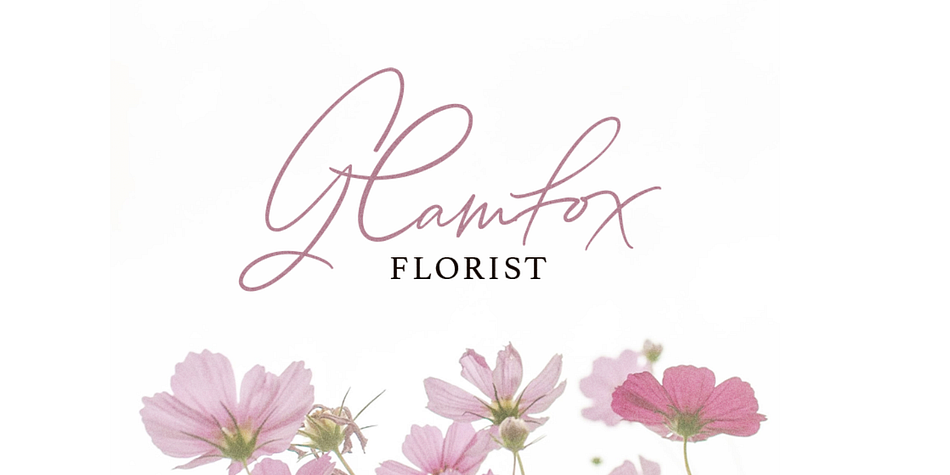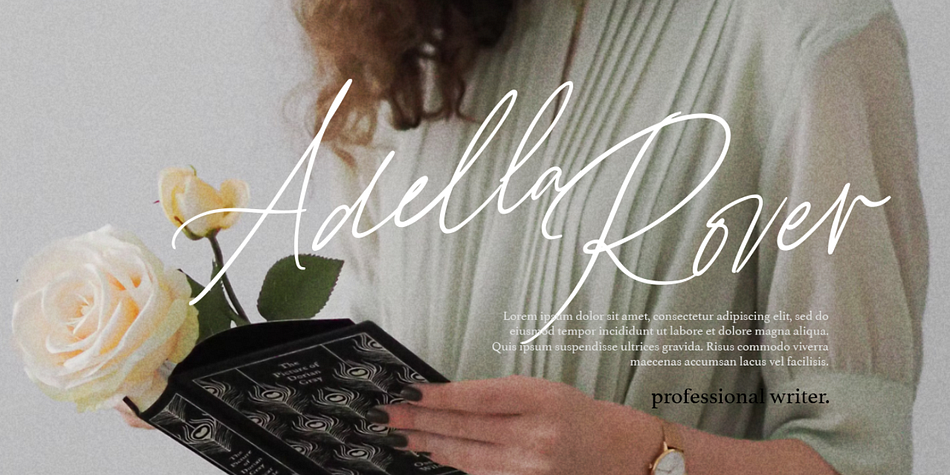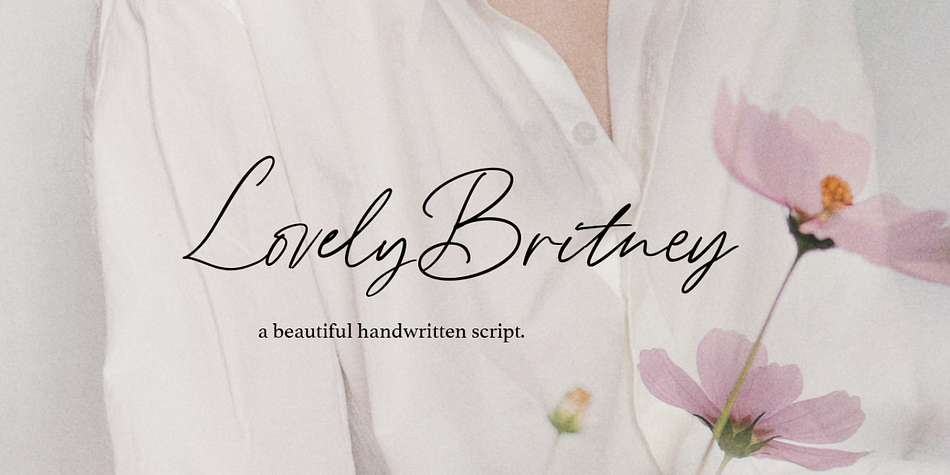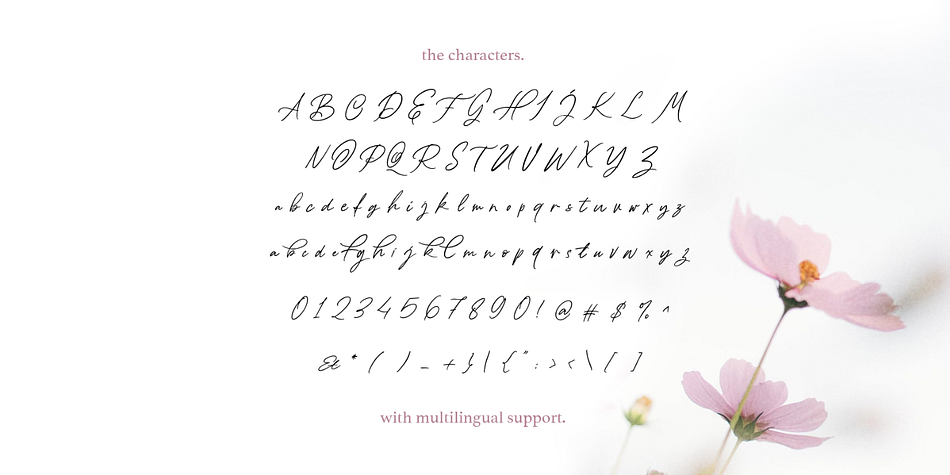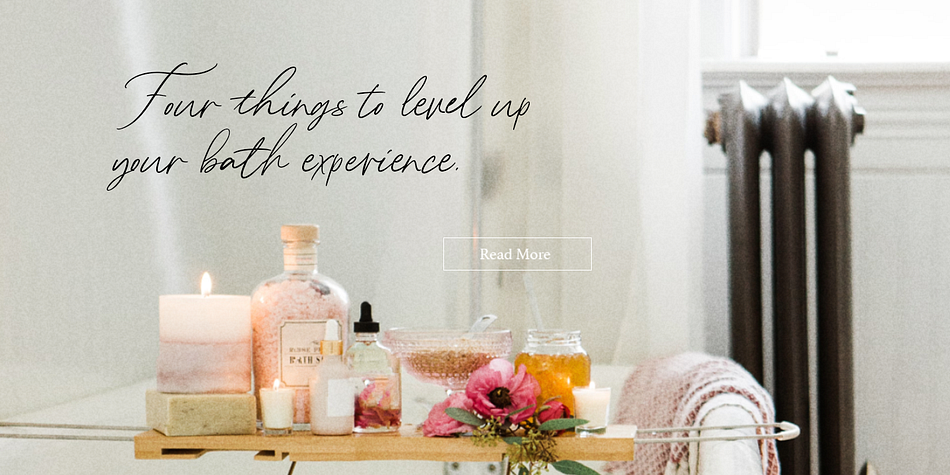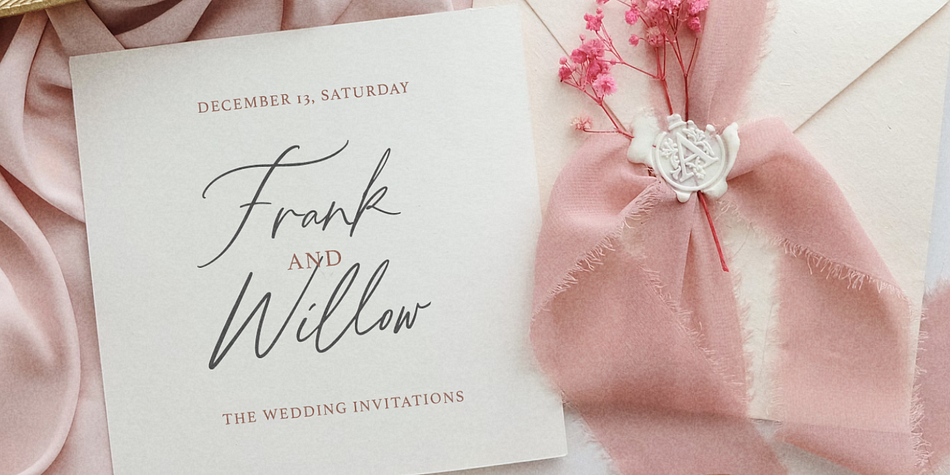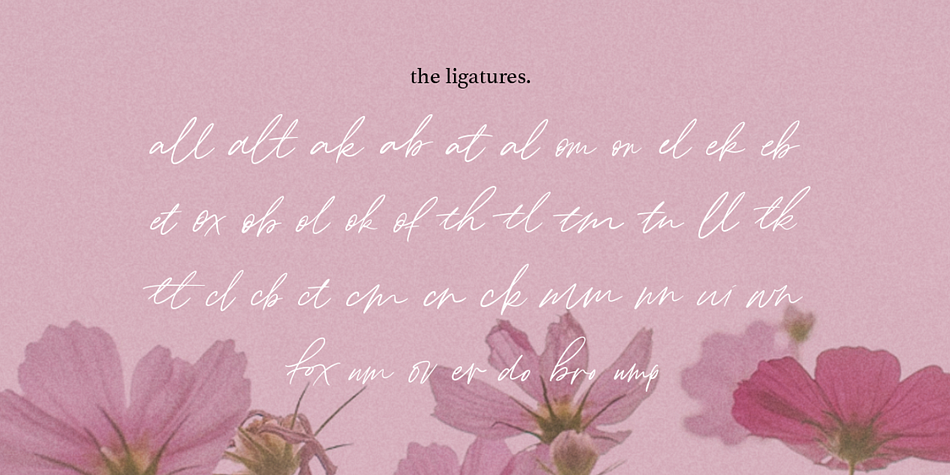
Lovely Britney
Designed by Hendry Juanda, Lovely Britney is a modern calligraphy and script font family published by Letterhend Studio.
Lovely Britney is a beautiful handwritten script font that embodies the essence of femininity and beauty. Its flowing curves and classy details create a look that is both charm and classy. Perfect for fashion, beauty, and lifestyle brands, this font will add a touch of sophistication and glamour to the other various formal forms such as invitations, labels, logos, magazines, books, greeting / wedding cards, packaging, fashion, make up, stationery, novels, labels or any type of advertising purpose.
- Alternates & Ligatures